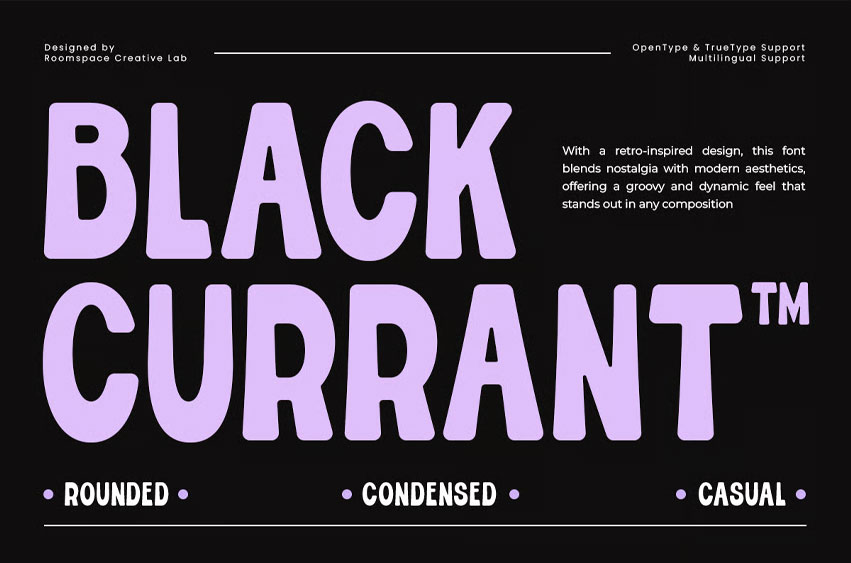
Black Currant Round Font
Black Currant Round Font Soft Condensed is a decorative retro serif font designed to bring a nostalgic and charming vibe to your creative projects. With soft, condensed letterforms and a touch of vintage flair, Black Currant offers a perfect blend of elegance and personality for your designs.
This font features smooth edges and a retro-inspired style, making it ideal for adding warmth and character to any project. It includes both uppercase and lowercase styles, allowing you to experiment with unique combinations. Plus, with multilingual support, your designs can connect with audiences worldwide.
Whether you’re designing logos, posters, product packaging, social media graphics, or vintage-style branding, Black Currant Soft Condensed is the perfect choice. Its decorative and retro aesthetic adds a delightful charm to projects that need a playful yet sophisticated vibe.